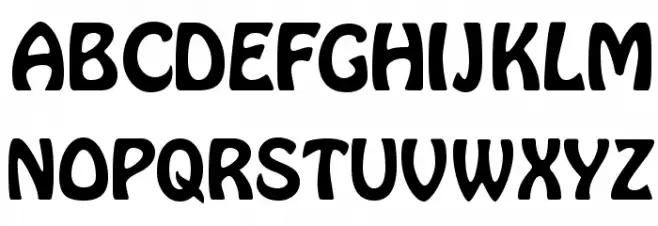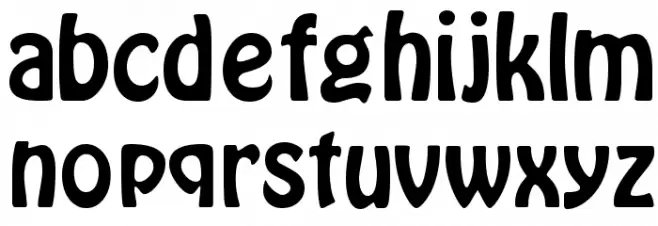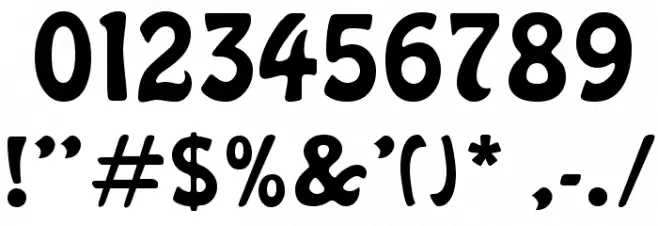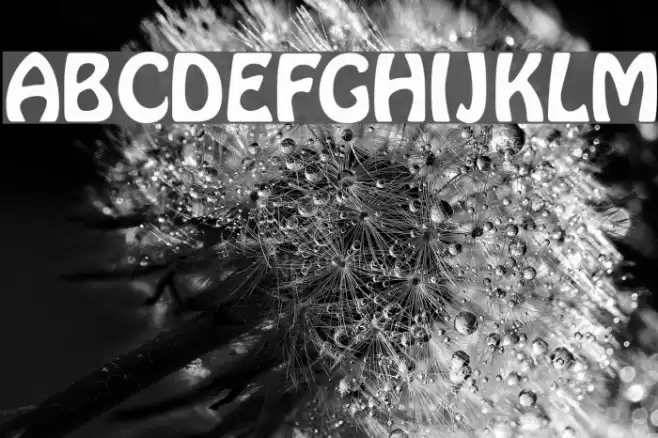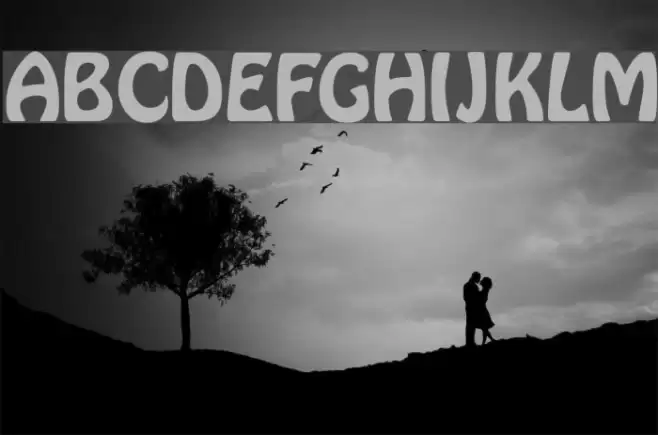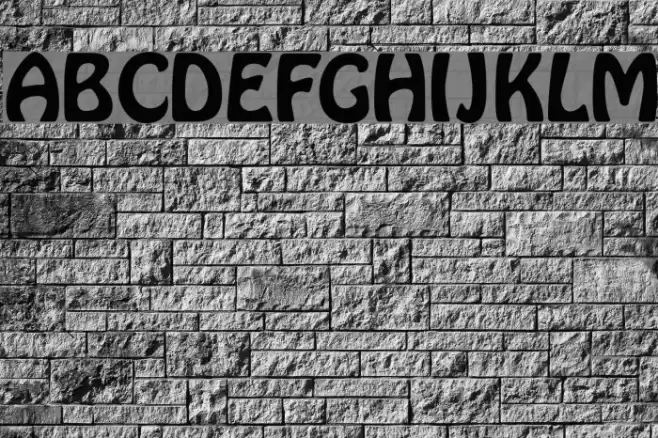
Hobo Font
Hobo Description
This font features a playful and rounded design, characterized by its lack of straight lines and sharp edges. The letters have a whimsical, almost cartoonish appearance, with a consistent stroke width that gives it a bold and friendly look. The curves are smooth and flowing, creating a sense of movement and energy. The font maintains a uniform weight throughout, contributing to its approachable and informal style. It is highly legible, making it suitable for a variety of uses where a casual and inviting tone is desired.
A playful, rounded font with smooth curves and a bold, friendly appearance.
- Proposed Projects: Ideal for children's books, playful branding, casual invitations, and posters.
- Overall Style: Playful, Casual